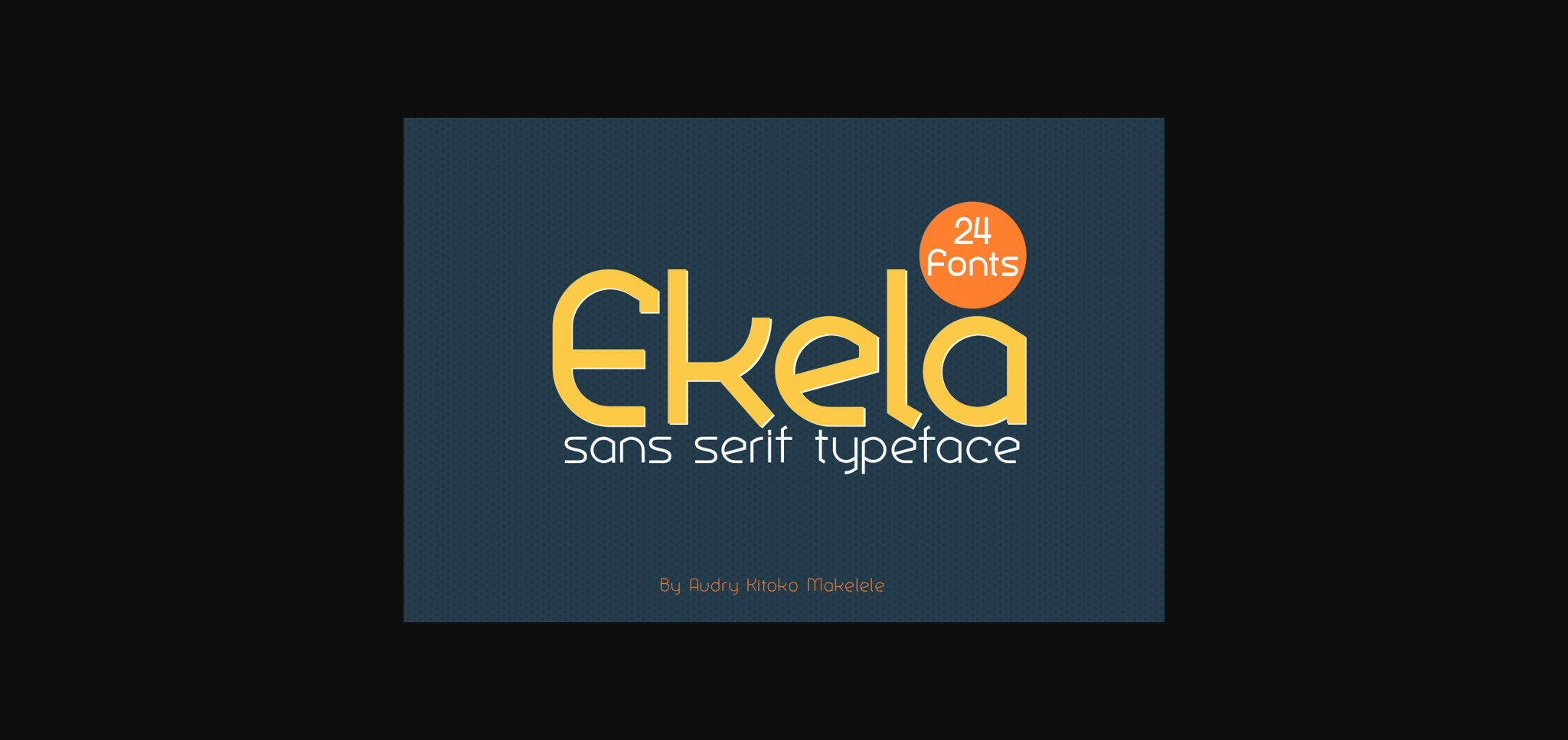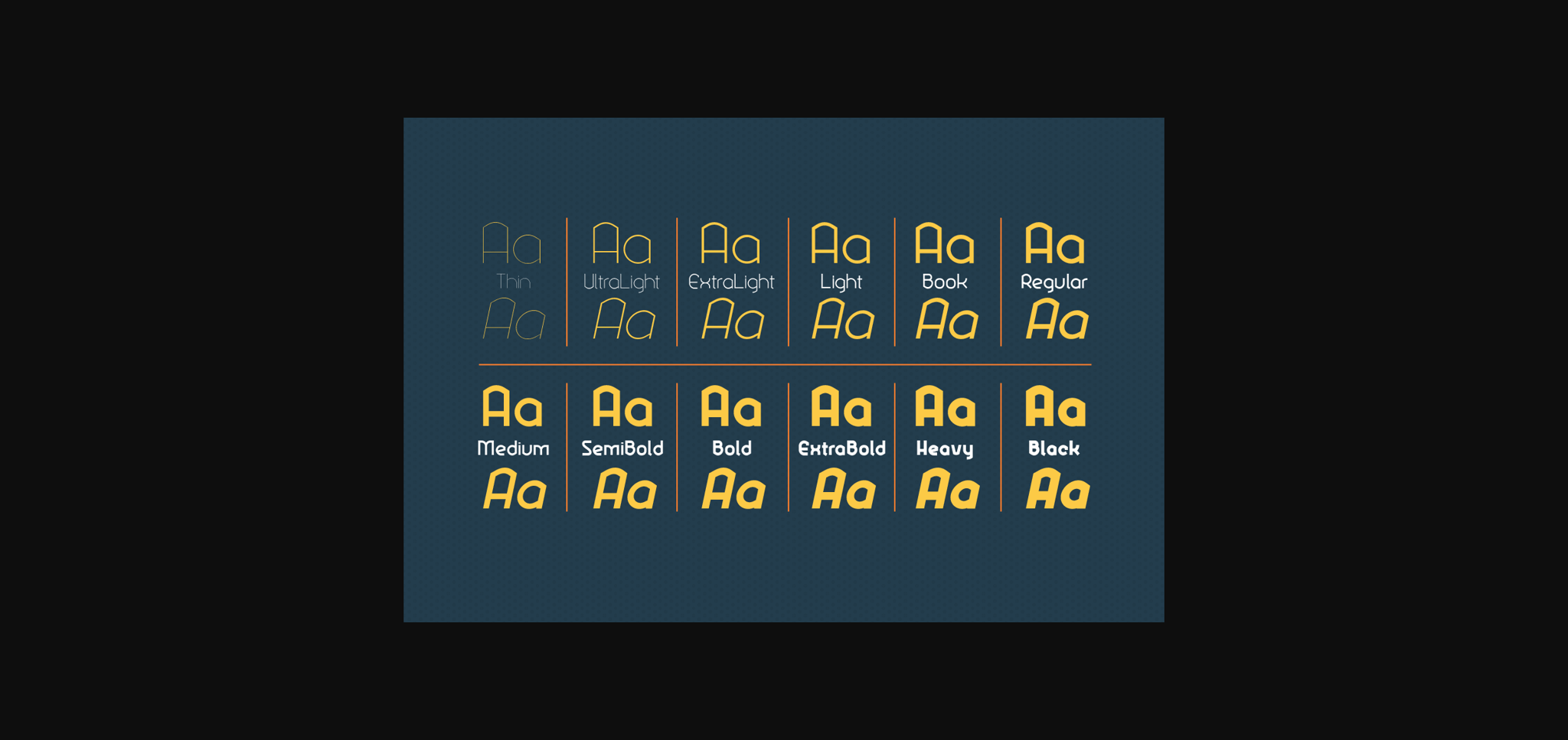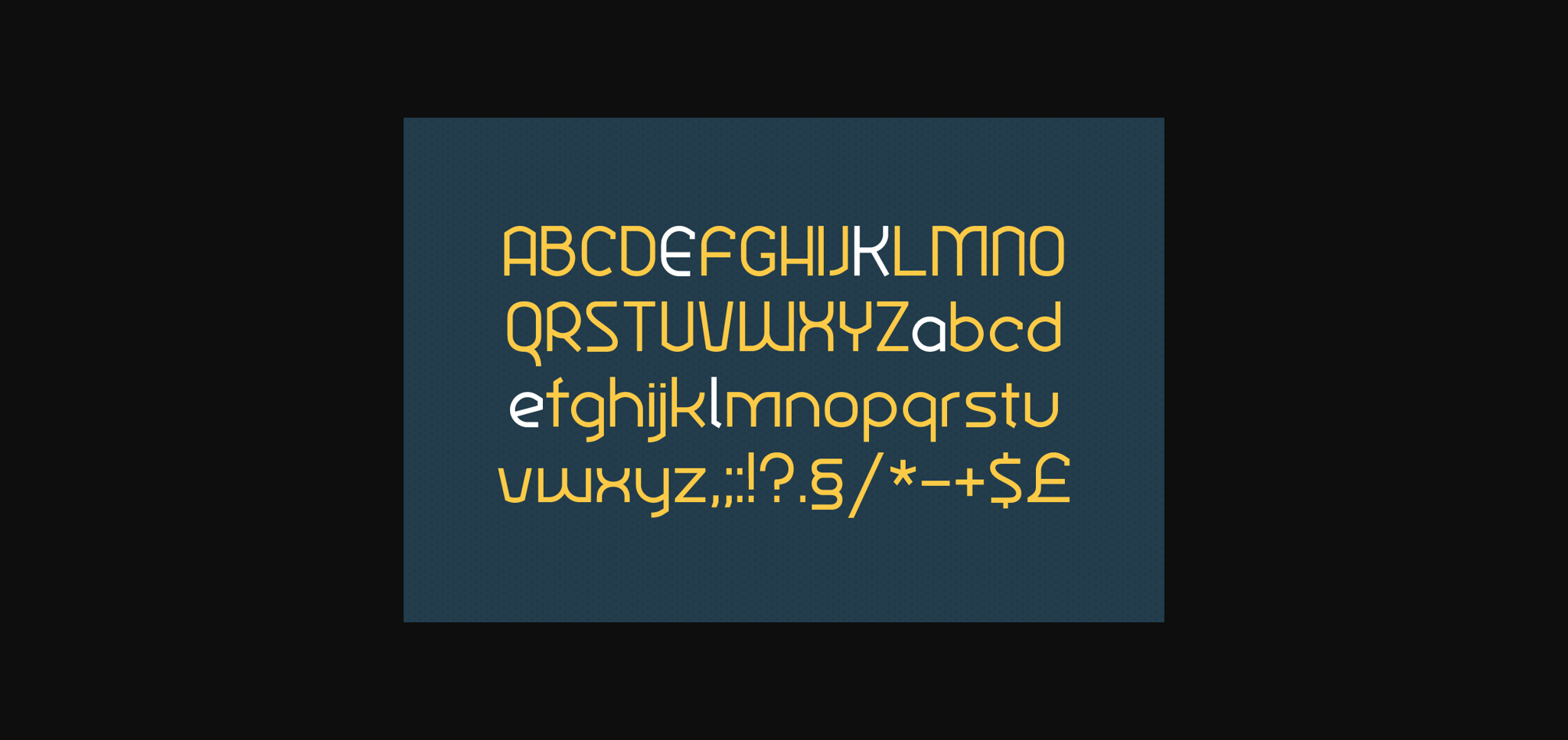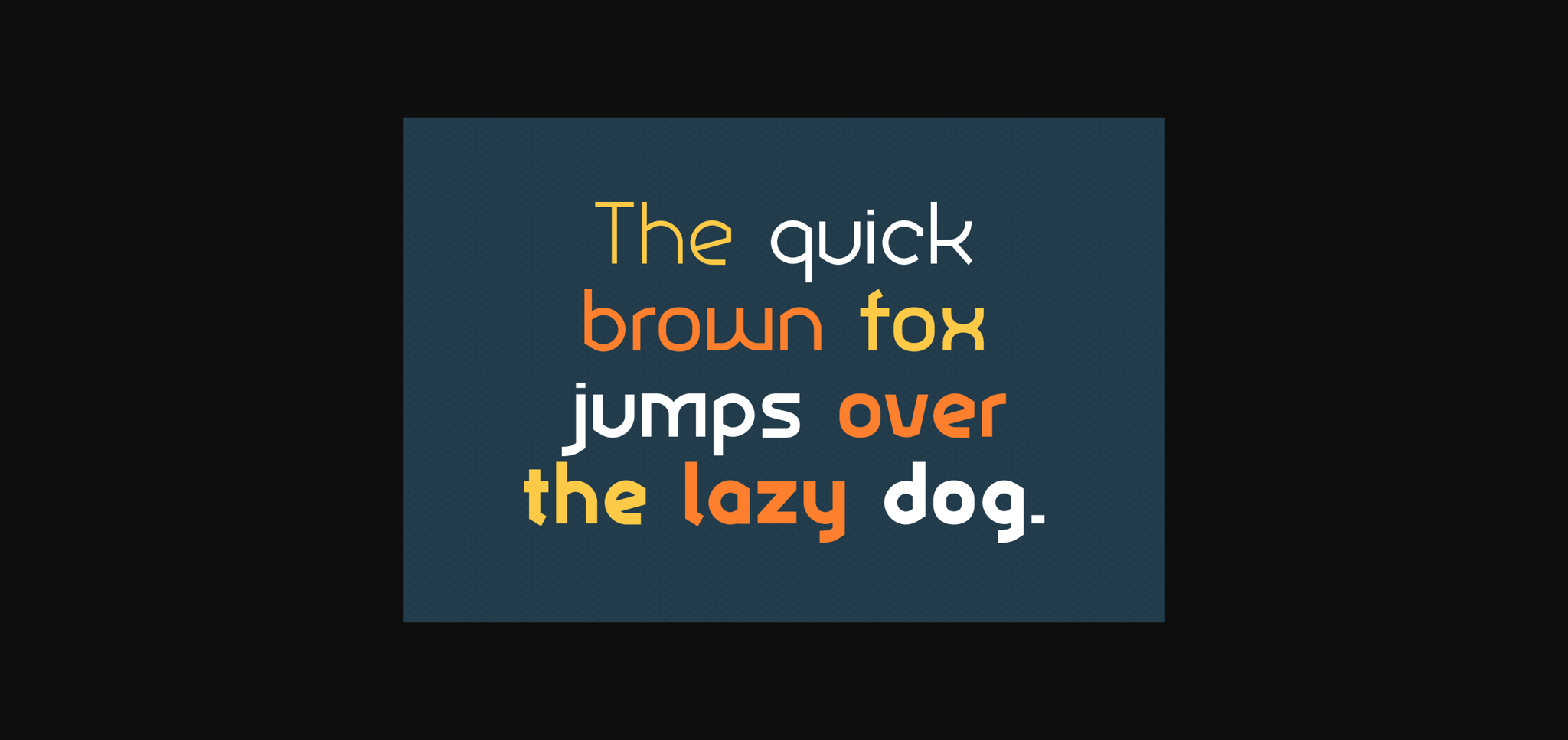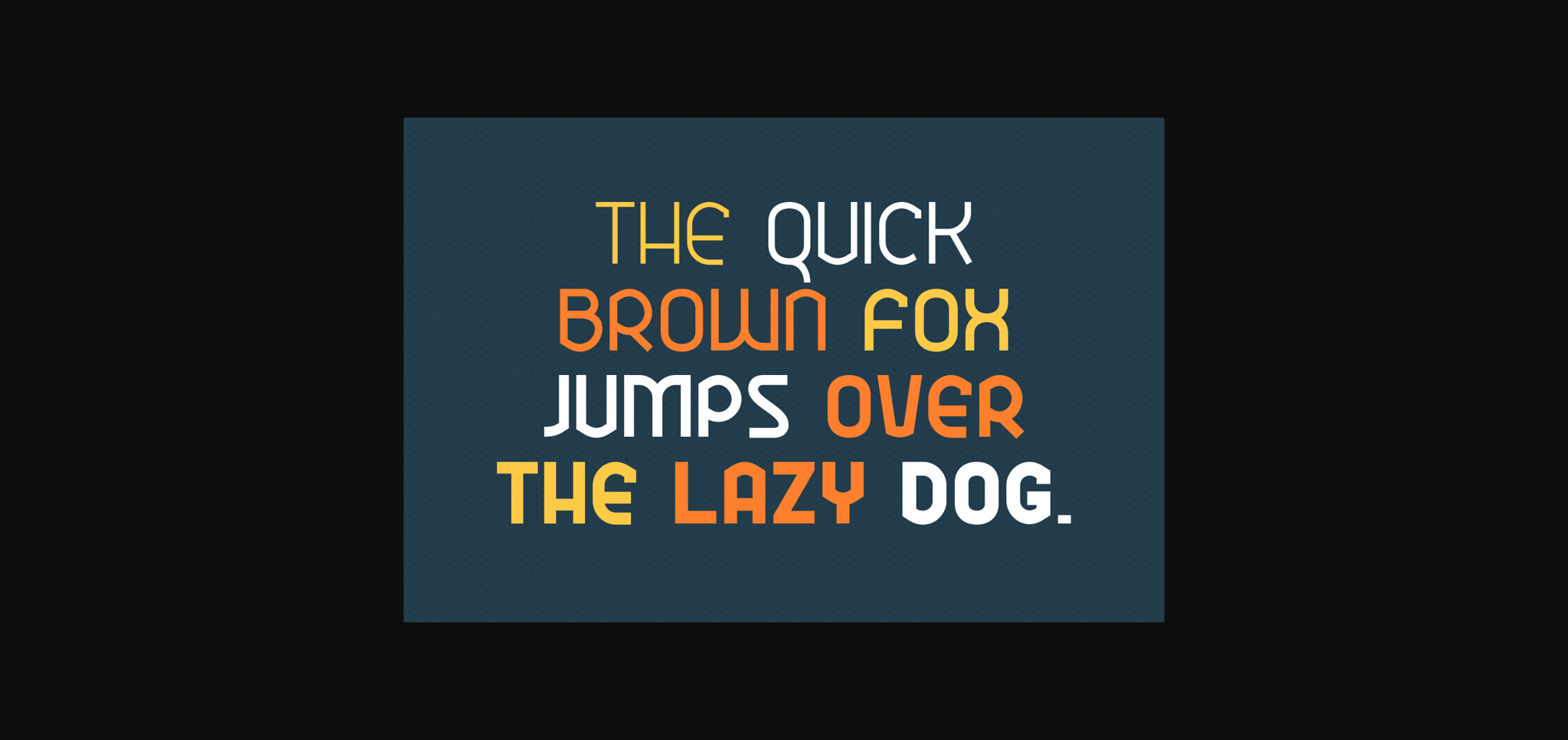
Ekela is a simple, sans serif font. Suitable to a wide variety of designs due to its neat style, Ekela has the potential to become your favorite go-to font, no matter the occasion!